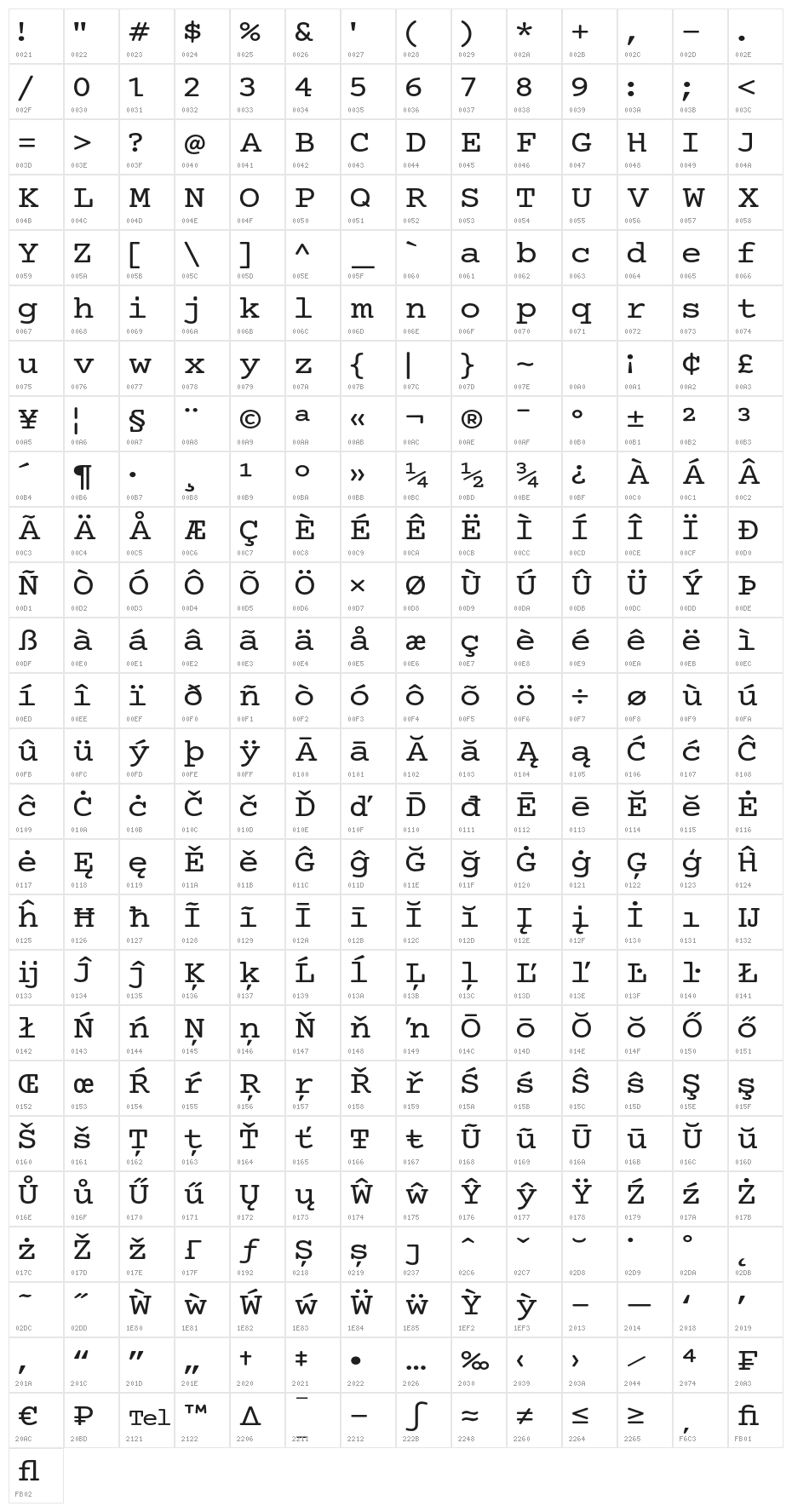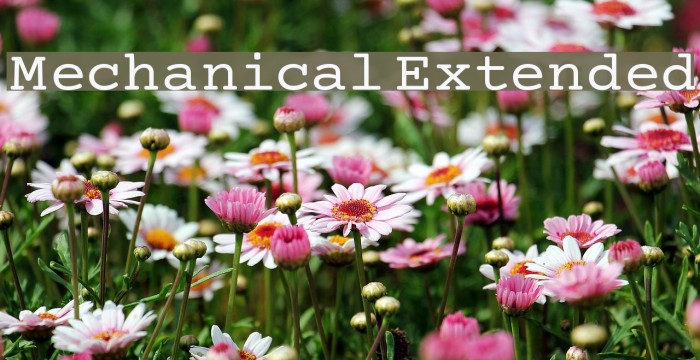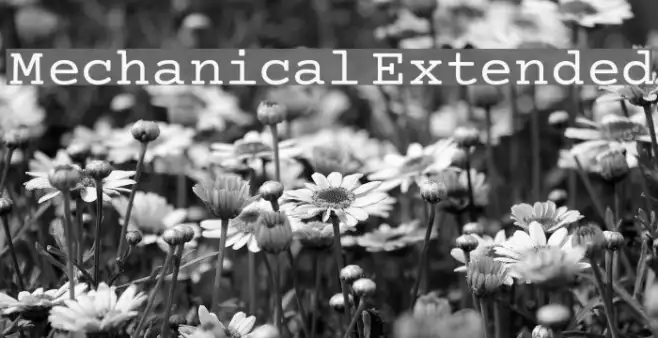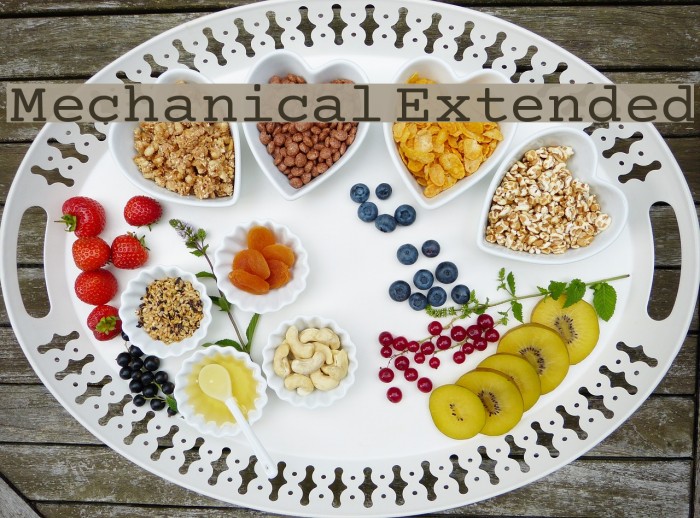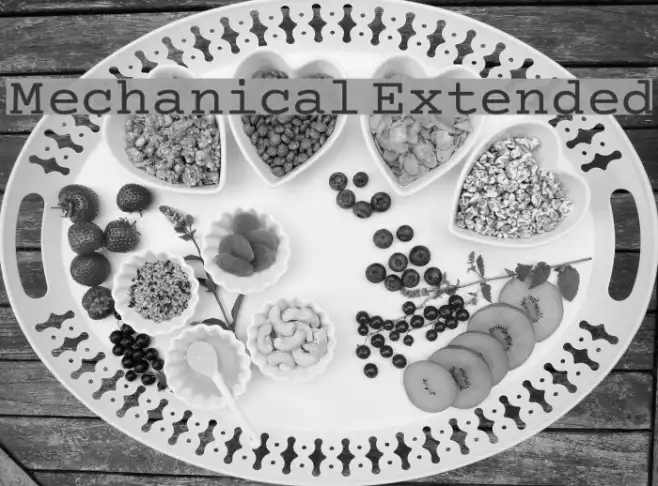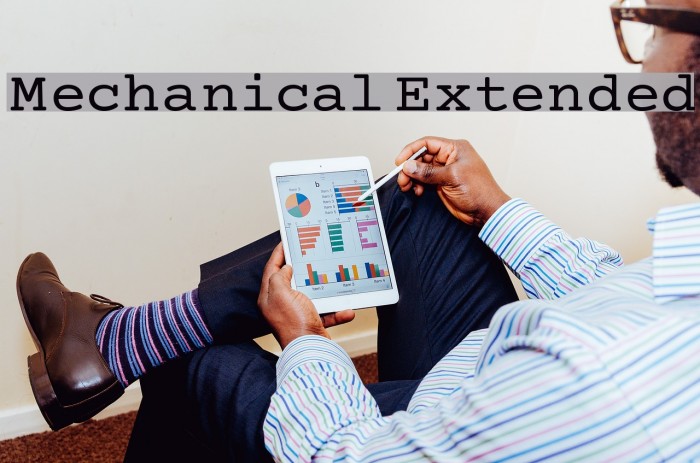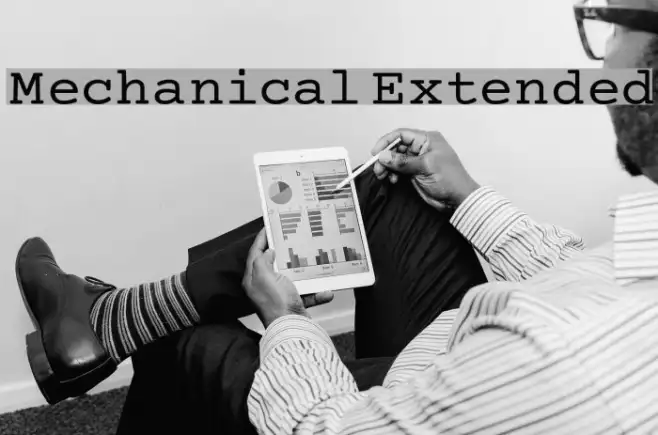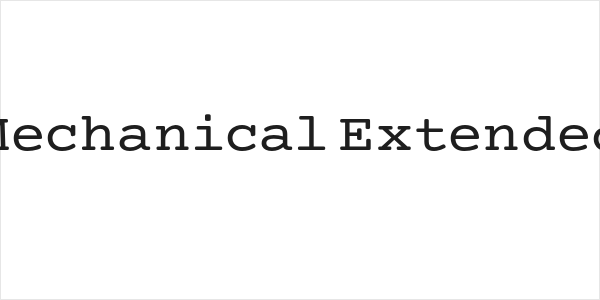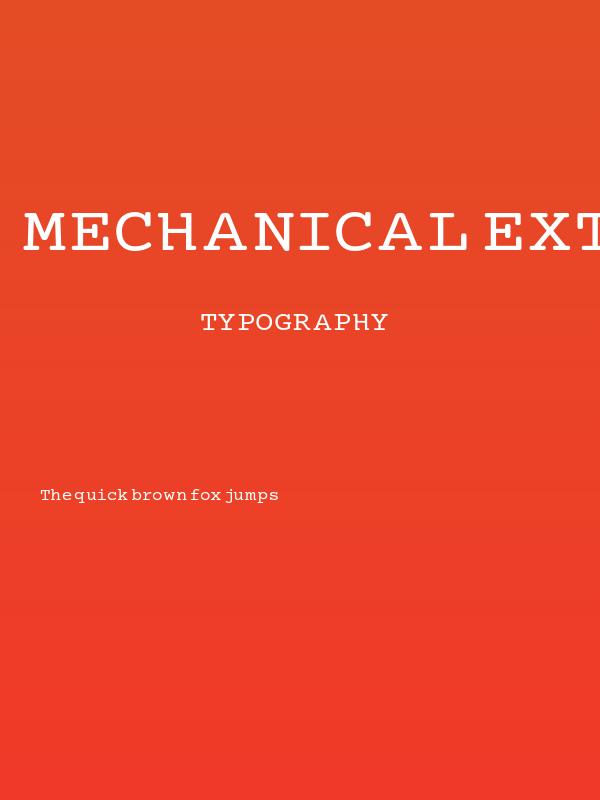
Mechanical Extended Font
Mechanical Extended Description
This font exhibits a robust and mechanical aesthetic, characterized by its extended and slightly condensed letterforms. The strokes are consistent and uniform, offering a clean and structured appearance. The serifs are subtle yet present, adding a touch of traditionalism to the otherwise modern design. The uppercase and lowercase letters maintain a balanced proportion, ensuring readability across different sizes. The numerals are clear and distinct, making them suitable for technical or industrial applications. Special characters are well-integrated, maintaining the overall mechanical theme.
| Use Case | Headlines, Logos, Technical Manuals |
| Proposed Projects | Ideal for technical manuals, industrial branding, signage, and editorial headlines. |